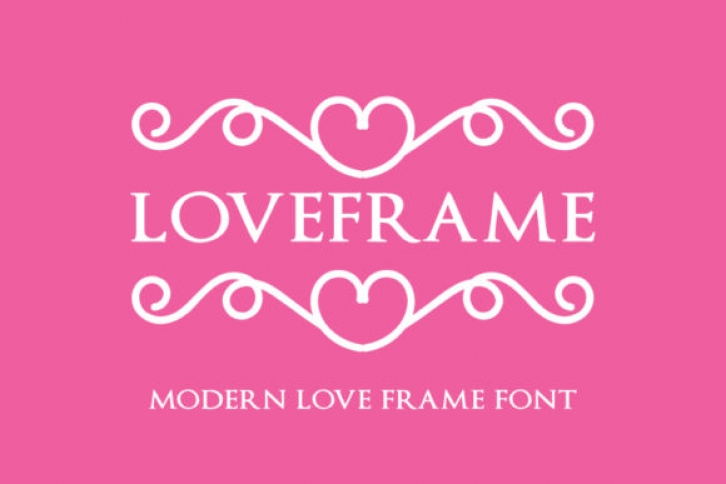
Loveframe is a gorgeous dingbats font. Use it to create amazing and romantic frames. It comes in two different versions. Get creative and create stunning frames!